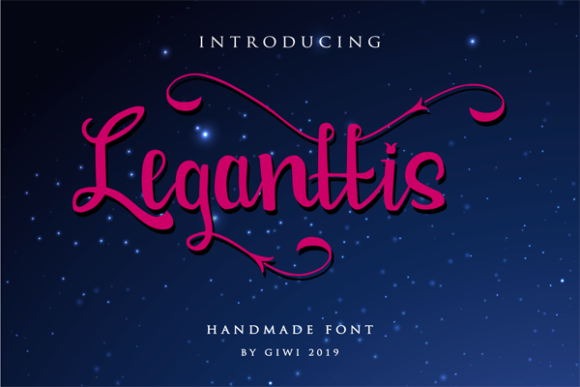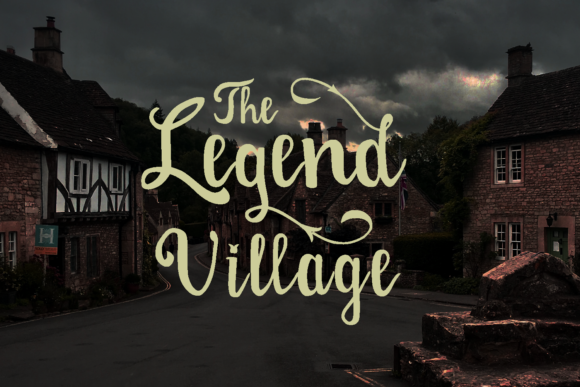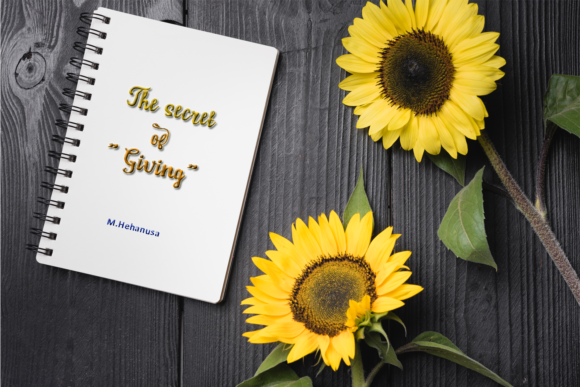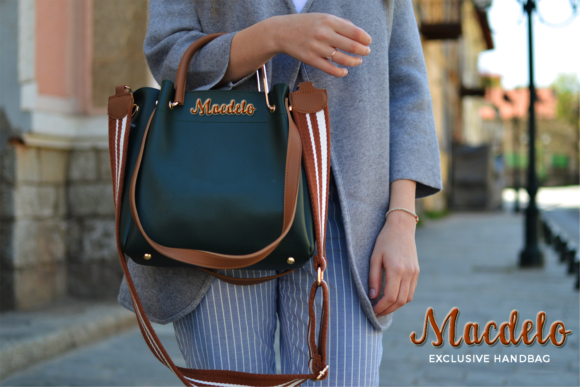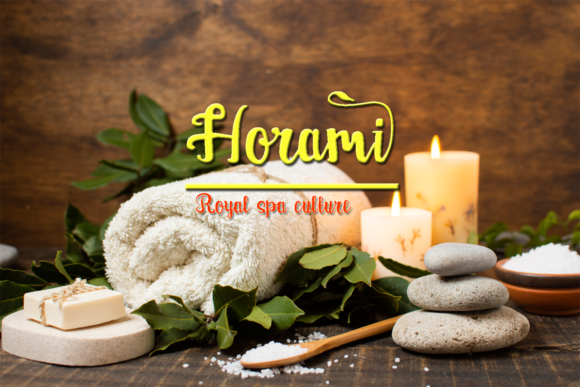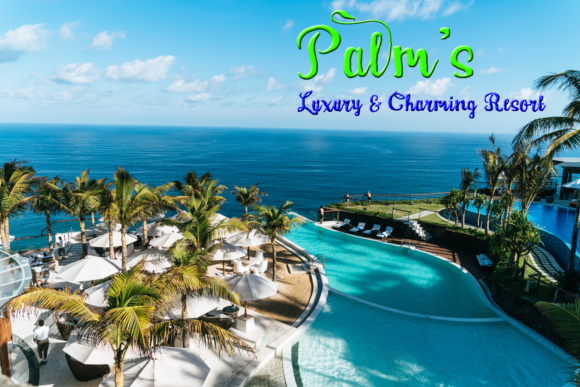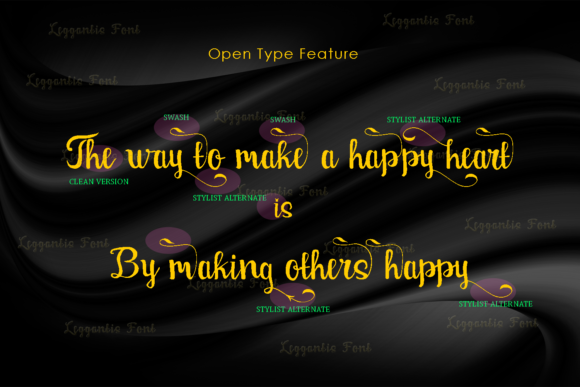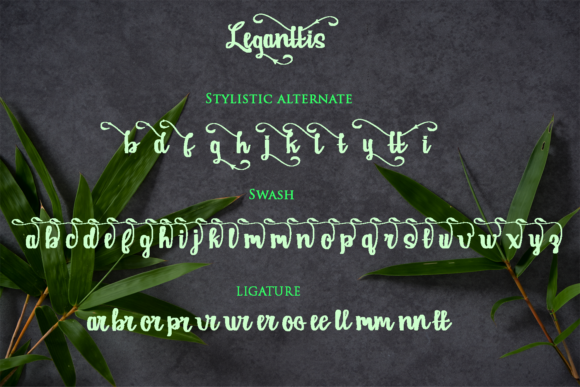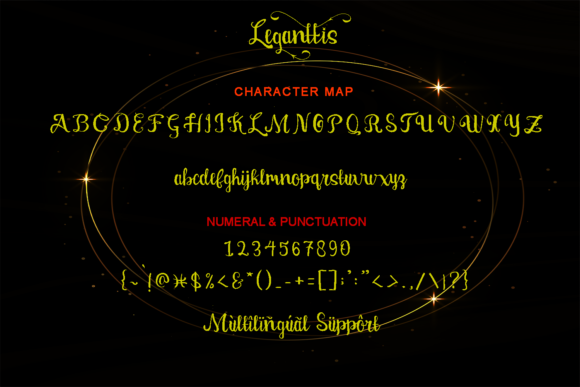
Leganttis Font
About Leganttis Font
Leganttis is a playful and cool script font with a sweet feel. Use it to turn any design project into a masterpiece.